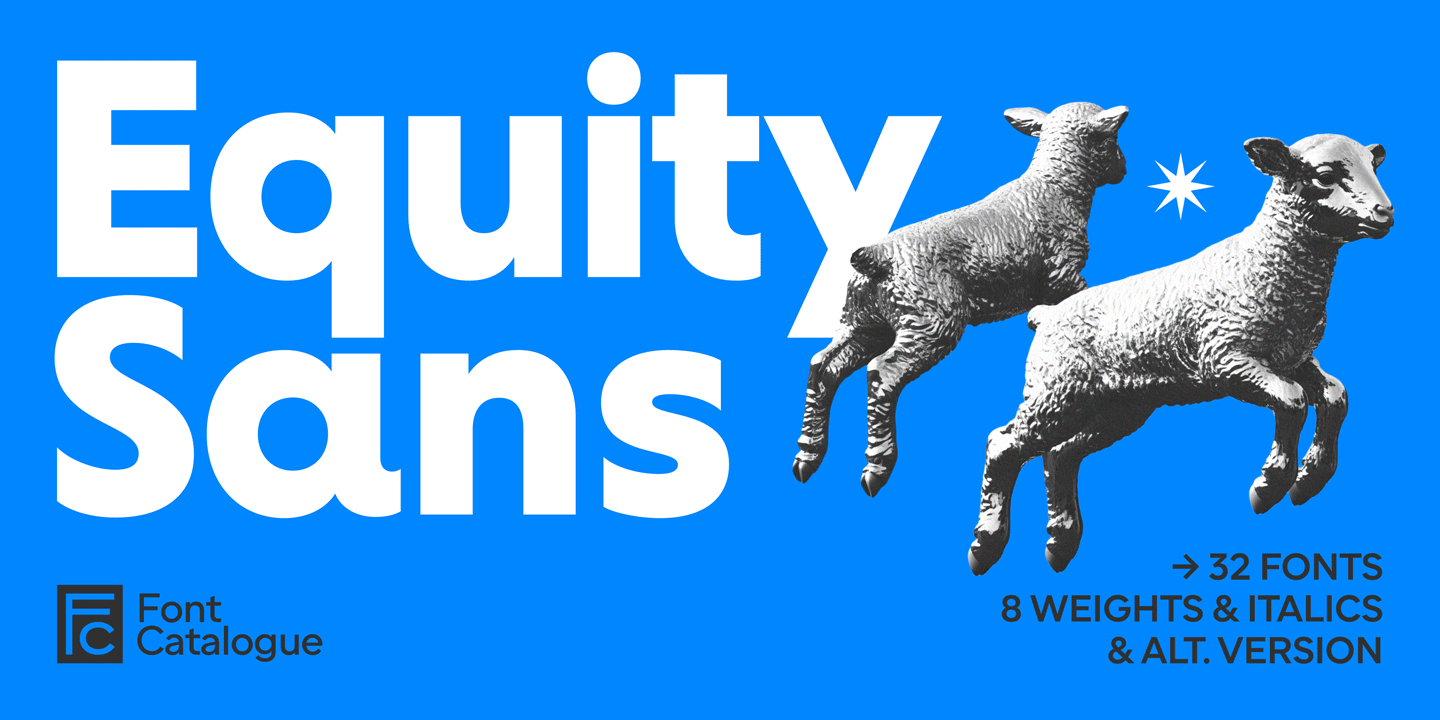
Soft geometry, sharp presence.
Equity Sans is a geometric sans with a rounded soul—literally. Built on pure circular forms, this typeface blends the crispness of modern design with a softness that feels remarkably approachable. It’s typography shaped by form, but guided by emotion.
With rounded terminals, generous curves and open rhythm, it’s an ideal fit for brands that want to express warmth, care or well-being. From beauty products to lifestyle packaging, Equity Sans feels contemporary, clean and accessible. Yet it never loses structure—its eight weights and eight italics give it the flexibility to perform across complex systems, from logos and landing pages to editorial campaigns. It doesn’t shout, but it doesn’t go unnoticed either.
Equity Sans has presence without aggression, and character without rigidity.